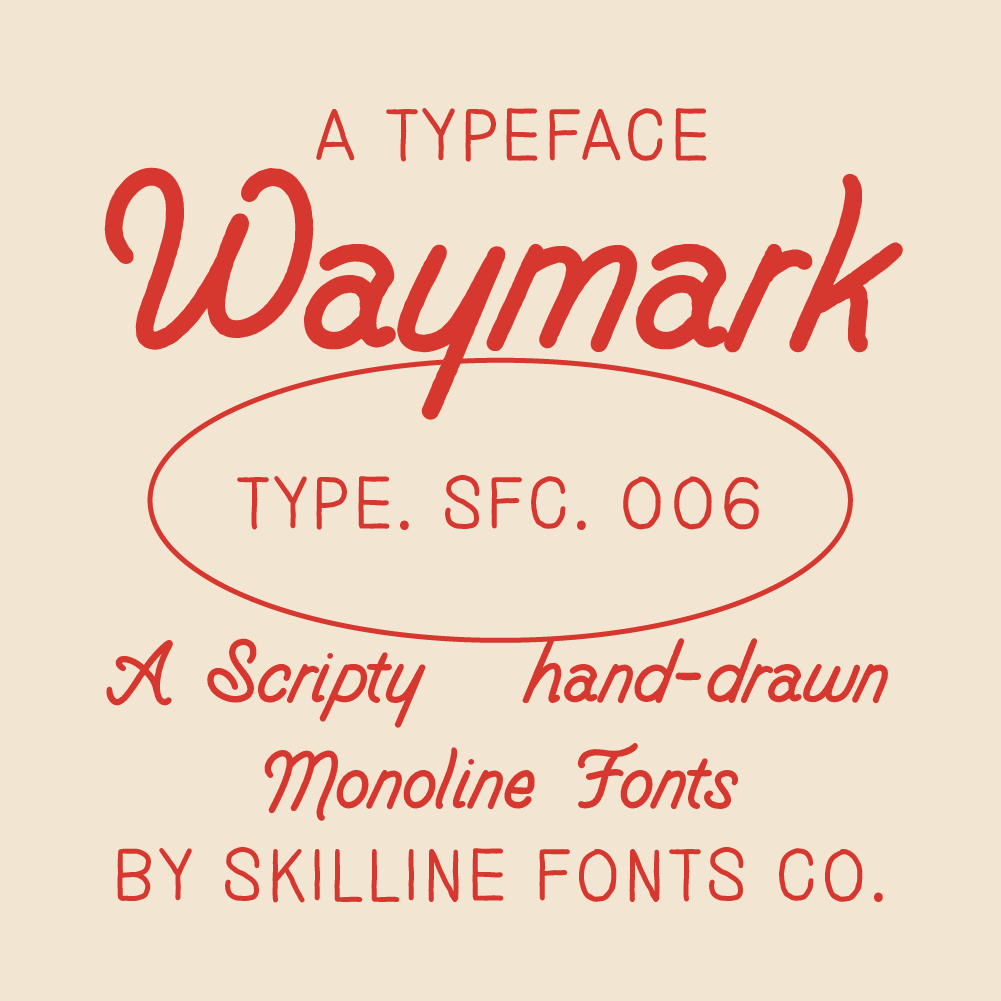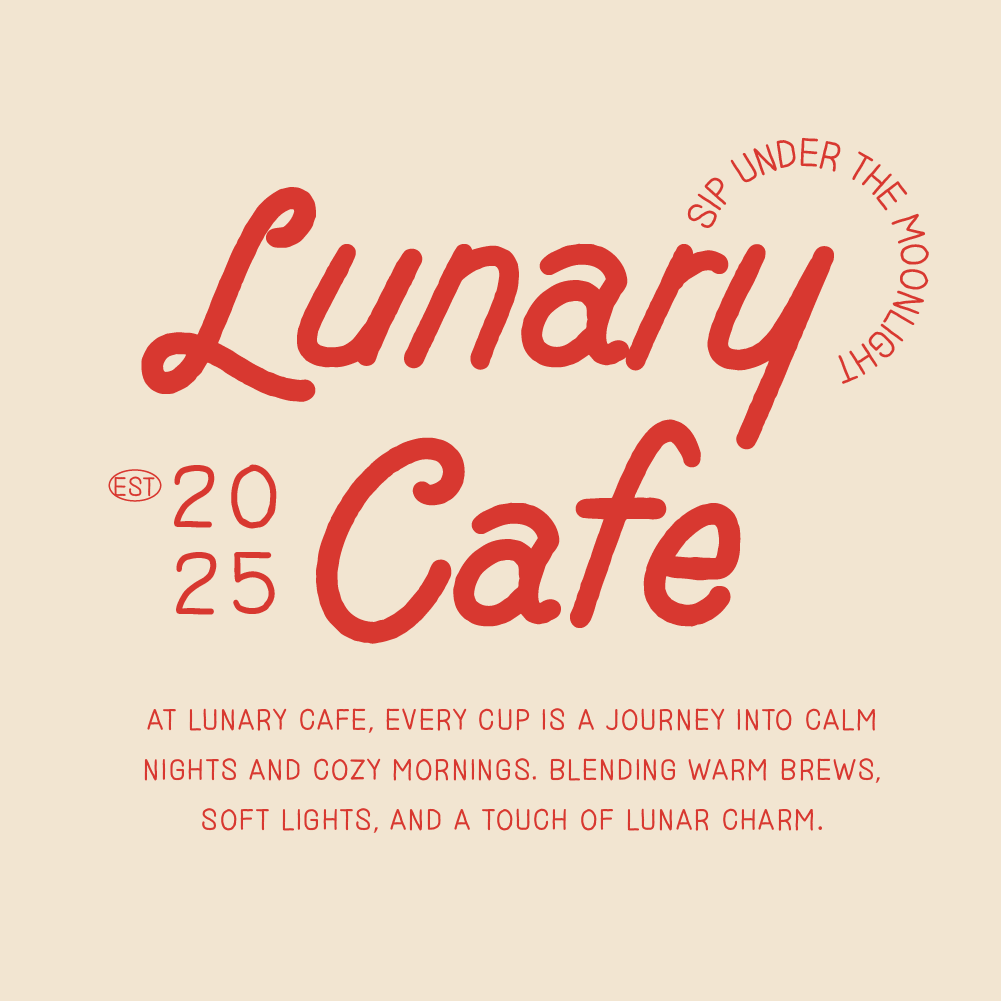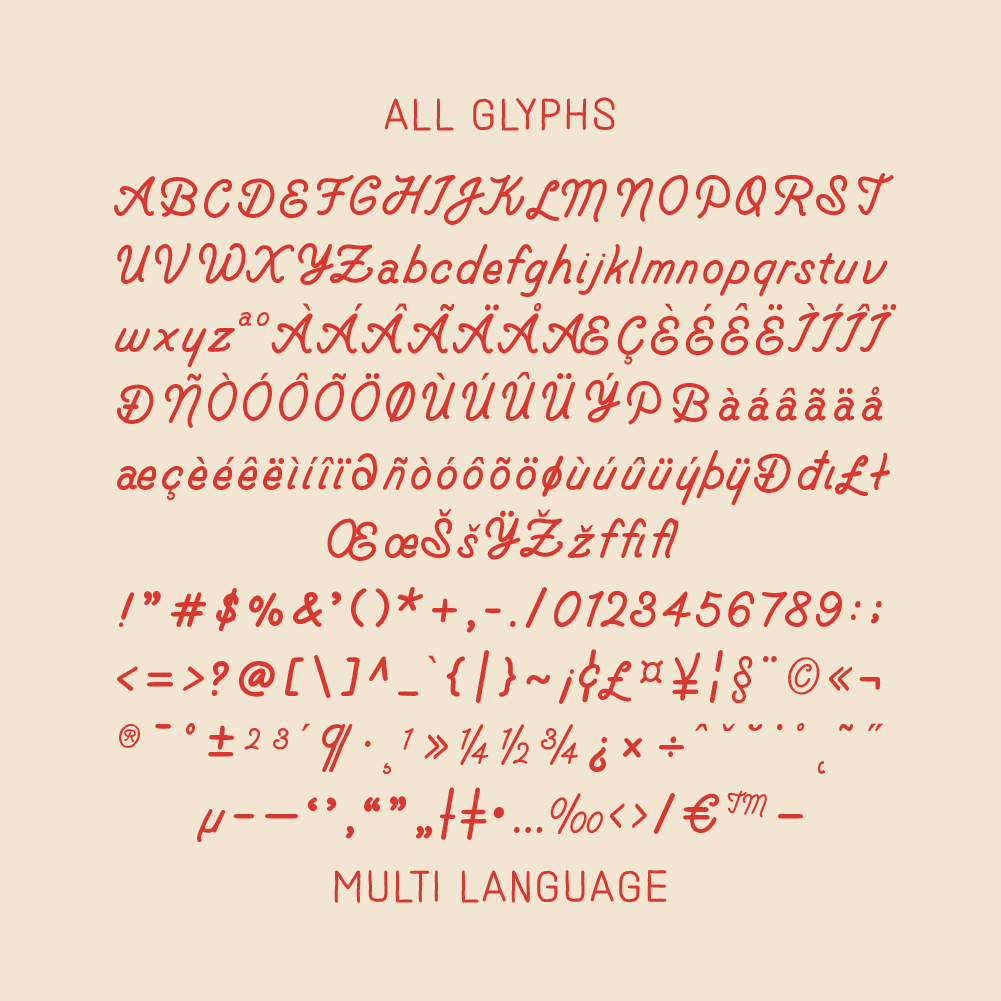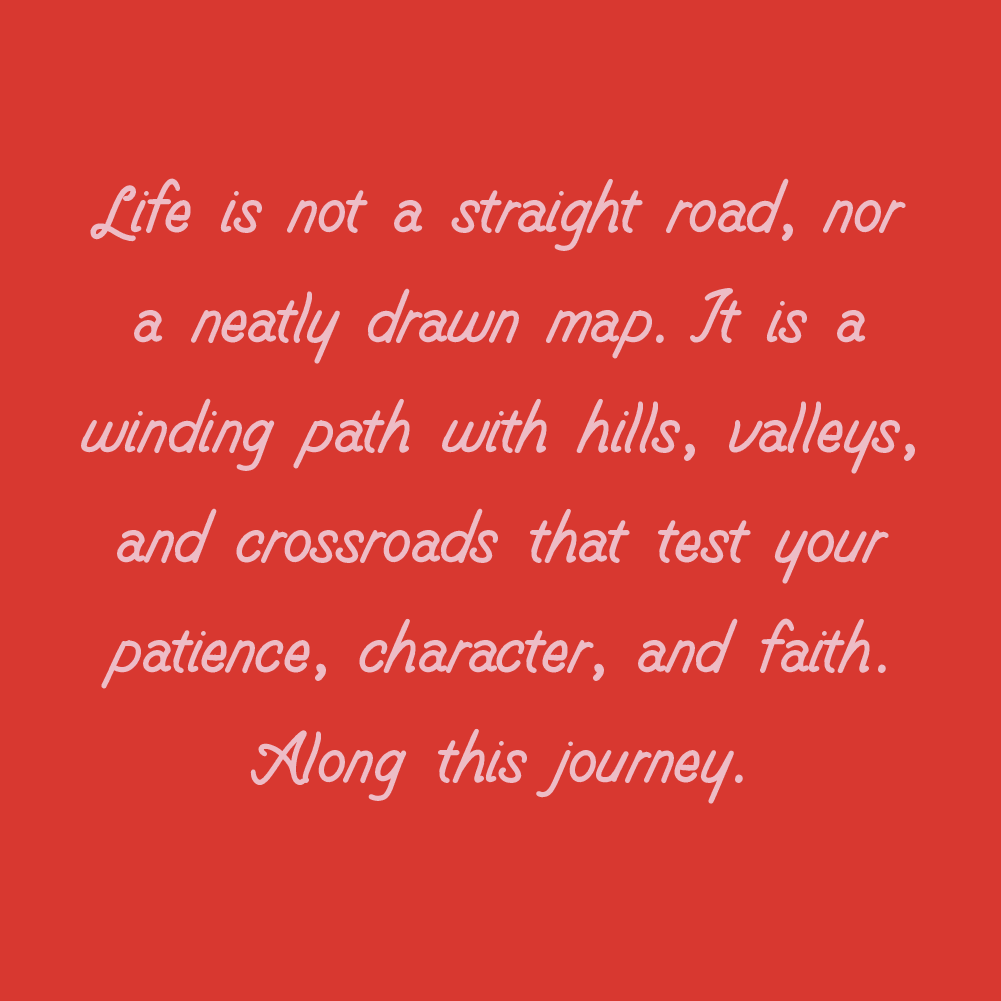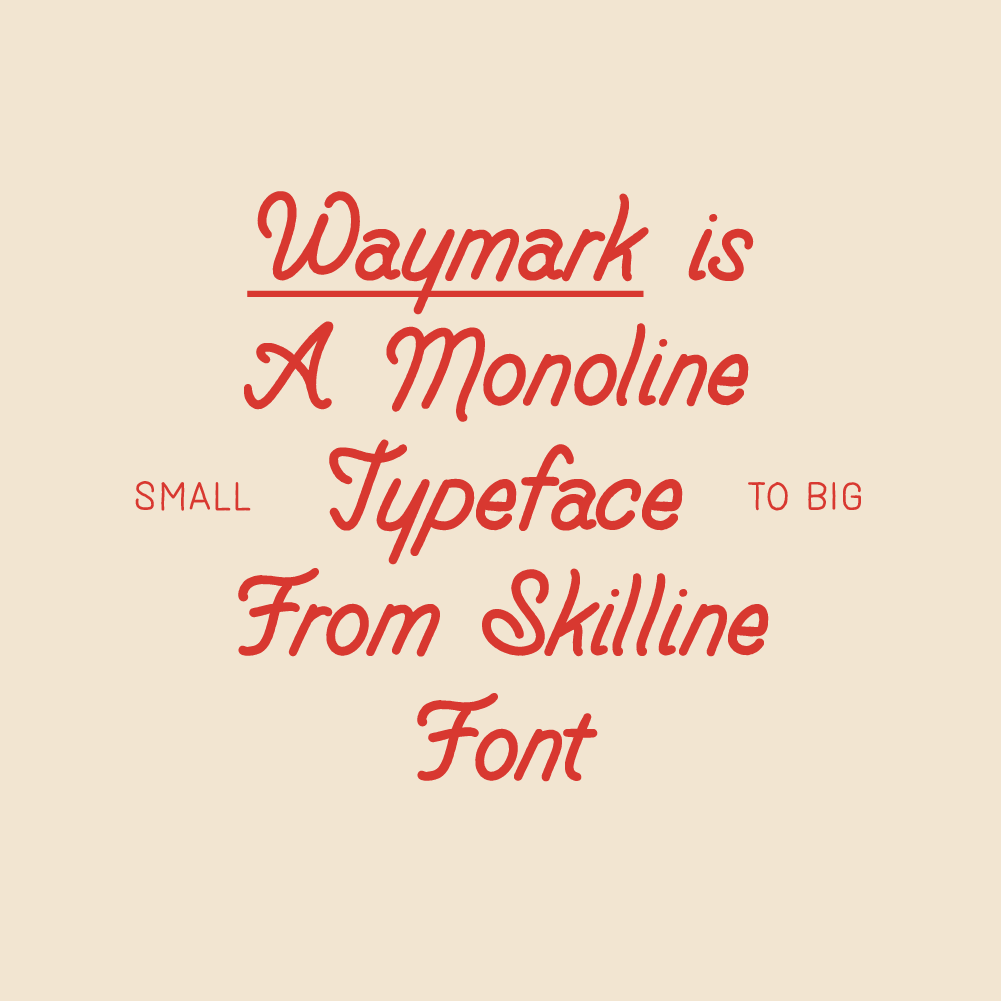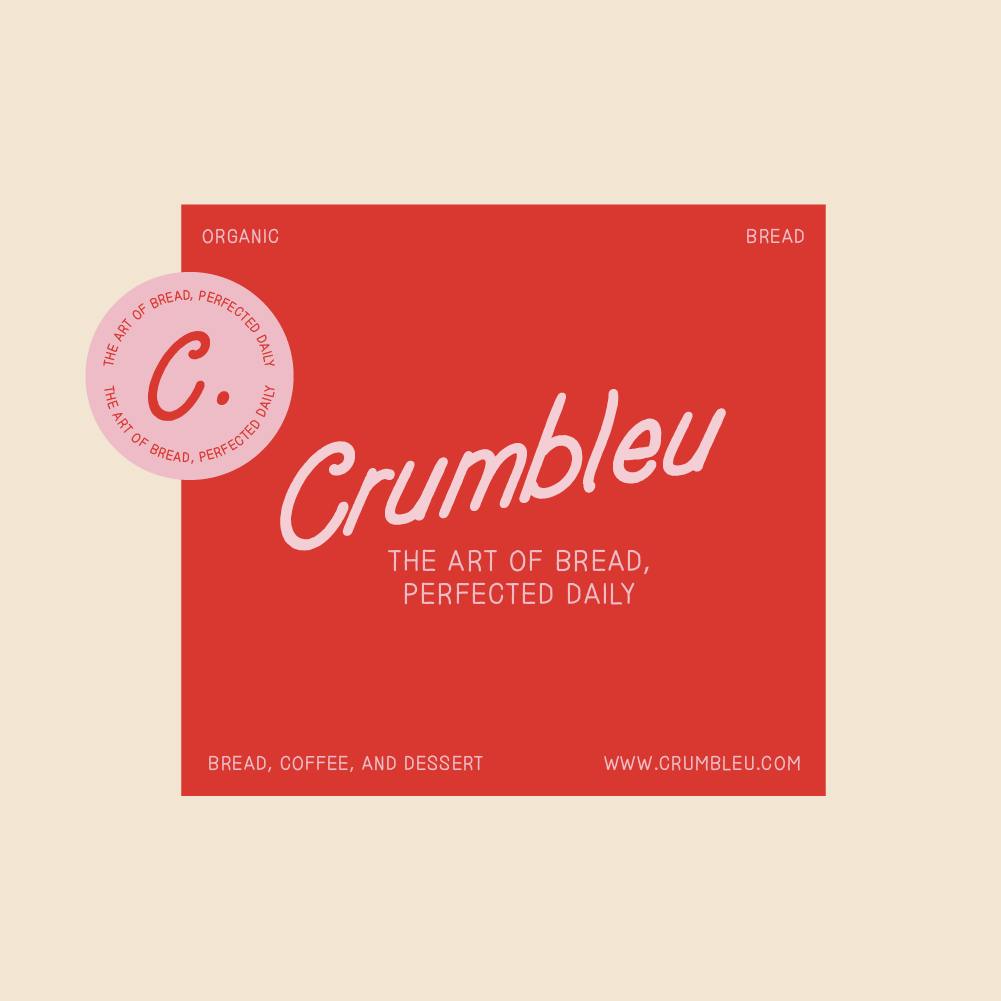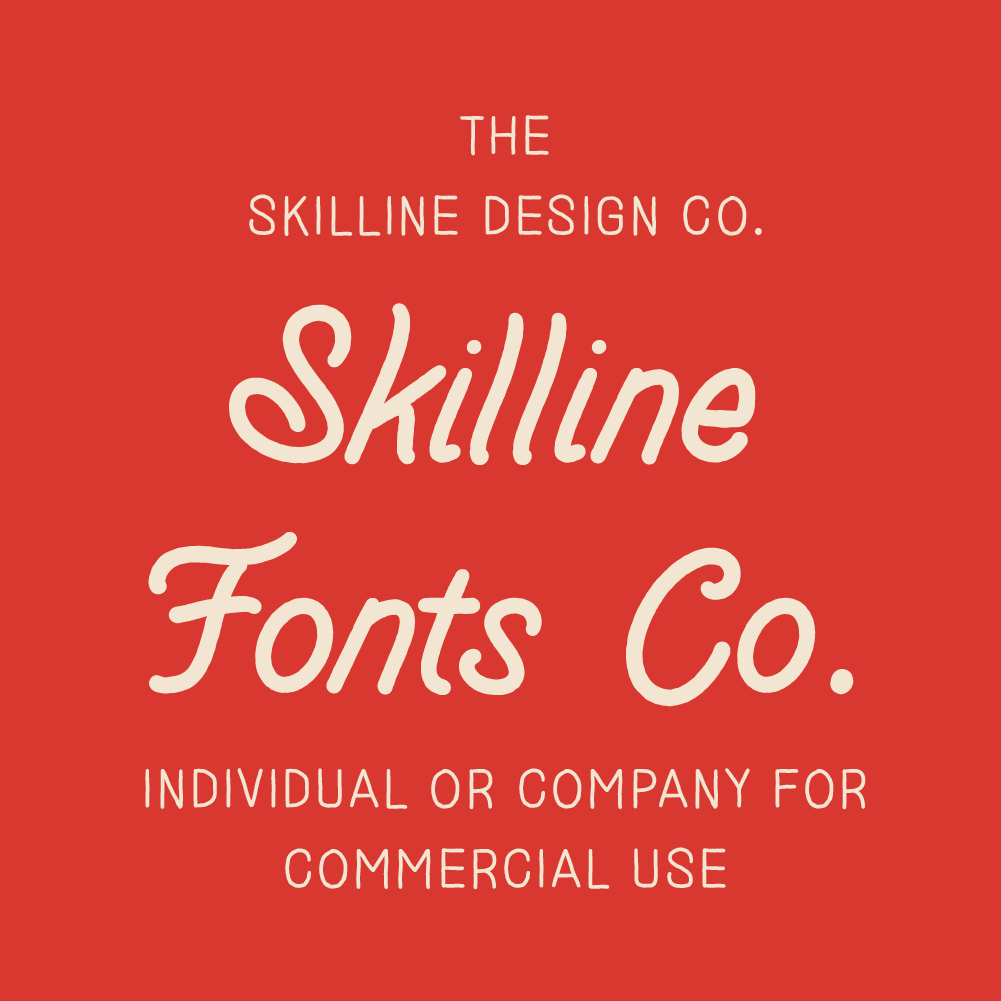
Waymark is a smooth handwritten script font that balances casual elegance with vintage charm. Featuring flowing strokes and a natural rhythm, it brings a warm, personal, and authentic feel while maintaining clarity and refinement. Inspired by handwritten notes and classic signage, Waymark adds character and timeless appeal to any creative project.
Ideal Applications for SFC Waymark Typeface
- Logo & brand identity
- Headline & Sub-headlines layouts
- Packaging & product design
- Apparel & merchandise graphics
- Social media & digital content
- Uppercase & Lowercase Characters
- Handwritten Script Style
- Smooth, Natural Letterforms
- Basic Numerals & Punctuation
- Multilingual Support